Rubeyma is a strong and bold script font. It is curved, rounded, and has an unique vintage style, that is perfect for branding. Add it to your most creative ideas and notice how it makes them come alive!
Agusta Font
Agusta is a gorgeous and bold handwritten font, crafted to give your headlines and logotype projects a stylish touch. This font reads as strong, confident, and dynamic and can add tons of nostalgic character to your designs. Agusta is PUA encoded which means you can access all of the glyphs and swashes with ease!
Ghrogol Font
Ghrogol is a bold, squared and robotic looking display font. This font is ideal for writing web designs, business cards, or pretty much anything else that requires a unique touch.
Scandlers Font
Scandlers is a bold and cool looking brushed display font. This font reads as strong, confident, and dynamic and can add tons of nostalgic character to your designs.
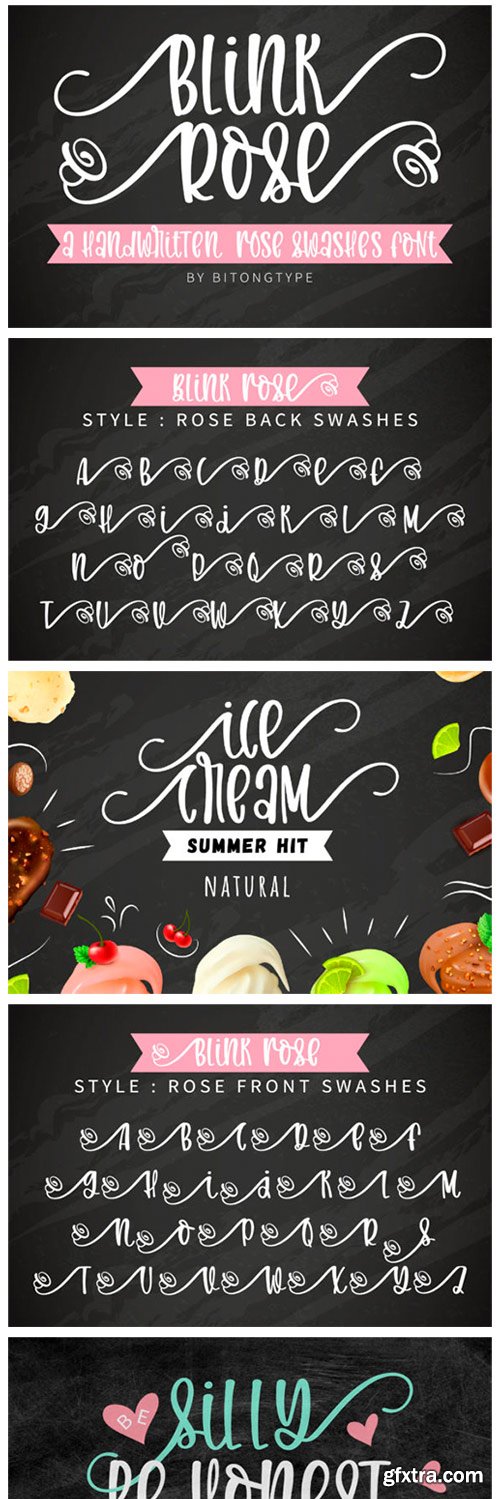
Blink Rose Font
Blink Rose is a sweet, friendly and jolly handwritten font, featuring a lovely style. No matter the topic, this font will be an incredible asset to your fonts’ library, as it has the potential to elevate any creation.
Minyi Font
Minyi is an elegant and authentic serif font. Expertly designed to make your creation look out of this world, this font will look gorgeous on a variety of ideas. Add it confidently to your projects, and you will love the results.
Gilly Fleurs Font
Gilly Fleurs is a beautiful, stylish and neat handwritten font. It will add a luxury spark to any design project that you wish to create! Fall in love with its incredibly versatile style and use it to create spectacular designs!
Nighty Font
Nighty is a cool, retro styled and uniquely lettered display font. It will elevate a wide range of crafting ideas, from cards, to branding, labels and much more. Nighty is PUA encoded which means you can access all of the glyphs and swashes with ease!
Emiliana Font
Emiliana is a delicate, elegant and flowing handwritten font. It has beautiful and well balanced characters and as a result, it matches a wide pool of designs. Fall in love with its incredibly versatile style and use it to create spectacular designs!
Breaking Spawn Font
Breaking Spawn is a cool, bold and imposing display font. No matter the topic, this font will be an incredibly asset to your fonts’ library, as it has the potential to elevate any creation.
Mondayslove Font
Mondayslove is a lovely and timeless handwritten font. It is the best choice for creating eye catching logos, branding and quotes. Every letter has a unique and beautiful touch, which will make your design come alive!
Alaska Font
Alaska is a cool, bold and techno looking display font. This font is ideal for writing web designs, business cards, or pretty much anything else that requires a unique touch.
Lofista Font
Lofista is a refined script font. This font is neatly crafted and highly detailed. Whatever the topic, this font will be a wonderful asset to your font library, as it has the potential to enhance any creation. Lofista is PUA encoded which means you can access all of the glyphs and swashes with ease!
Lovegoods Font
Lovegoods is a relaxed, casual and friendly handwritten font. No matter the topic, this font will be an incredibly asset to your fonts’ library, as it has the potential to elevate any creation.
Koolkids Font
Koolkids is a luxurious and relaxed script font. This font is neatly crafted and highly detailed. Whatever the topic, this font will be a wonderful asset to your font library, as it has the potential to enhance any creation.
Wabi Sabi Font
Wabi Sabi is a cool and neat looking brushed display font. It can be used for various designs that require an informal, friendly touch. Add it confidently to your projects, and you will love the results.
Bahamas Font
Bahamas is a lovely brushed handwritten font. It looks stunning on wedding invitations, thank you cards, quotes, greeting cards, logos, business cards and every other design which needs a customized touch.
Arastin Font
Arastin come with the lowercase and uppercase of the display romantic style like a script, italic, and caps. Its outer curve flows without interruption. In one swift move, from nose to tail. This characteristic is mirrored throughout the typeface and defines both its details as well as its overall type colour. Its wide range of stylistic alternates allows versatile design options and works perfectly for headlines, logos, posters, packaging, T-shirts, postcards and much more. Also supported PUA encoded. Simply copy and paste the alternate characters using the Character Map (Windows), Font Book (Mac) or a software program such as PopChar (for Windows and Mac).